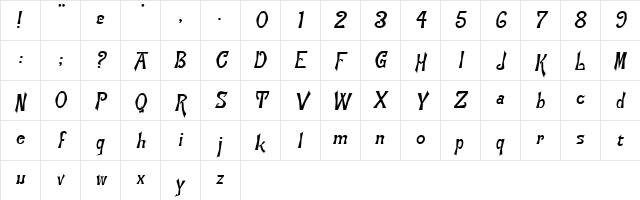
Zeist Oblique
Zeist Family
Zeist Oblique
Design Context for Zeist
Zeist is a composed and adaptable typeface that performs quietly and consistently across a wide range of design contexts. The slanted form adds forward momentum and visual energy.